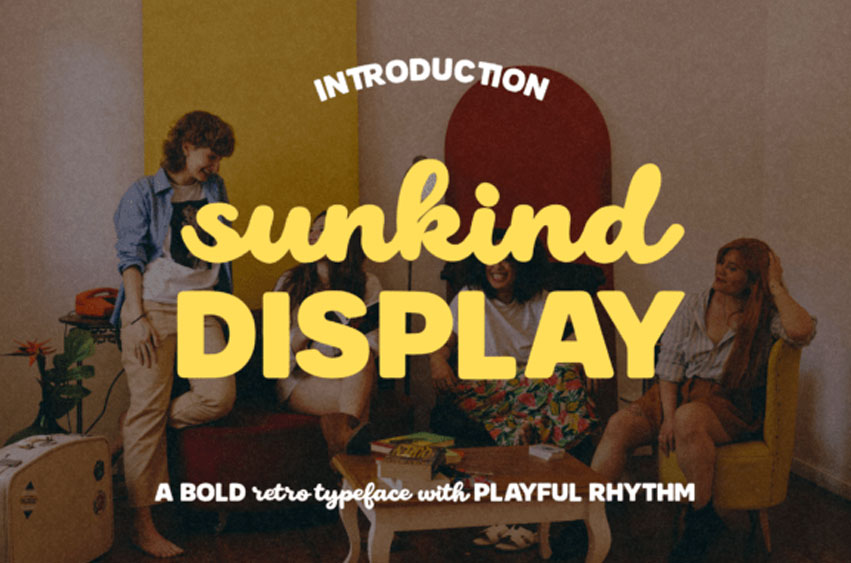
Sunkind Display Font
Sunkind Display Font is an audaciously expressive mixed typeface that harmonizes the robustness of a retro sans-serif with the sleek fluidity of a handwritten script. Inspired by nostalgic visuals from the groovy ’70s to the chic ’90s, Sunkind’s retro vibe also possesses a commanding visual hierarchy, ideal for headline and sub-head combinations. It shines in lifestyle and emotive branding scenarios requiring a warm and friendly tone.
Whether you’re crafting engaging social media content, designing packaging for lifestyle products, or conceptualizing bold posters and editorial layouts—Sunkind Display is your font of choice. It brings alive fashion lookbooks, embellishes quotes, and inspires your content with an overall heartening aura.